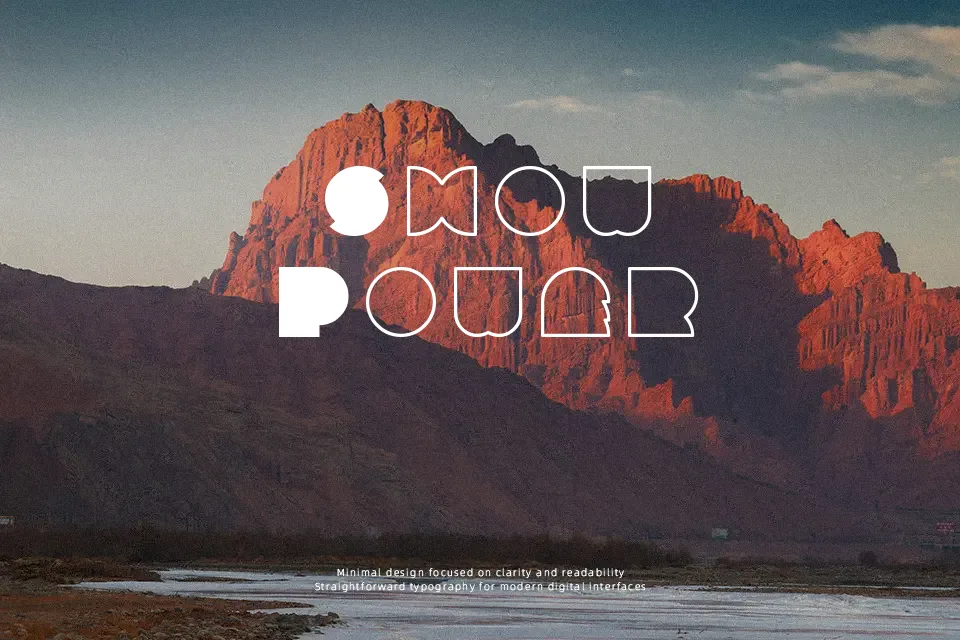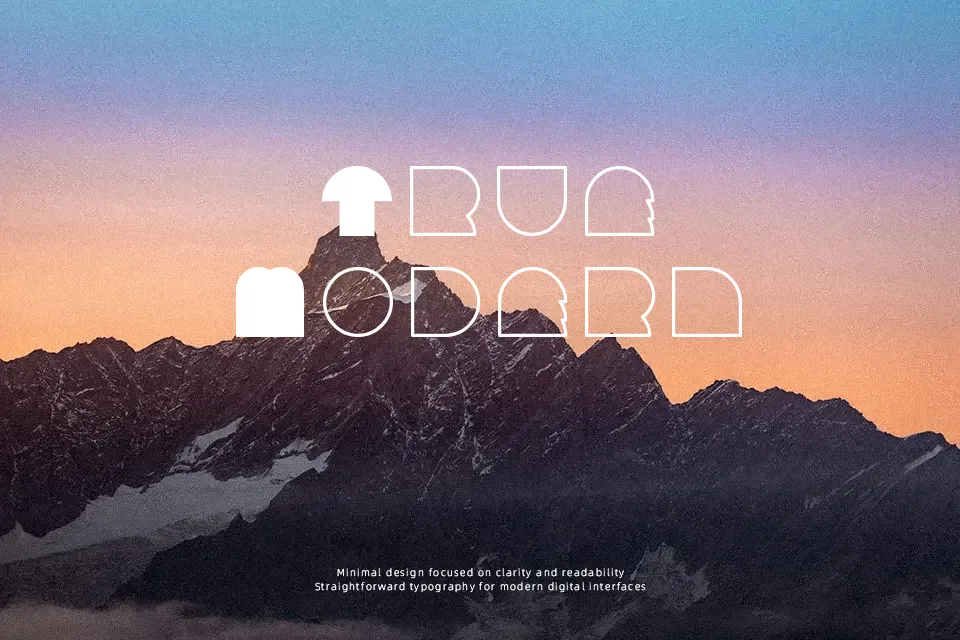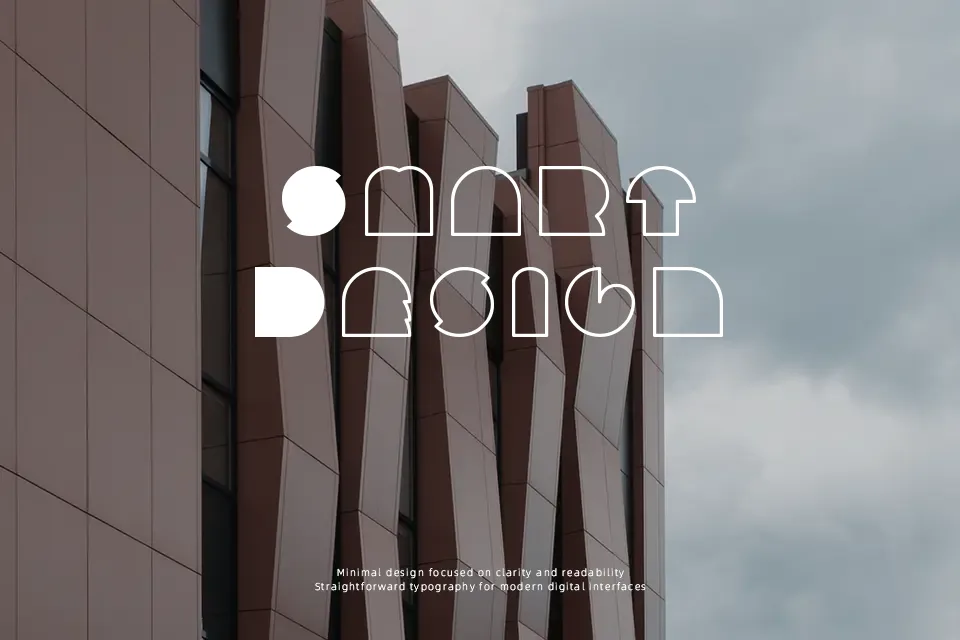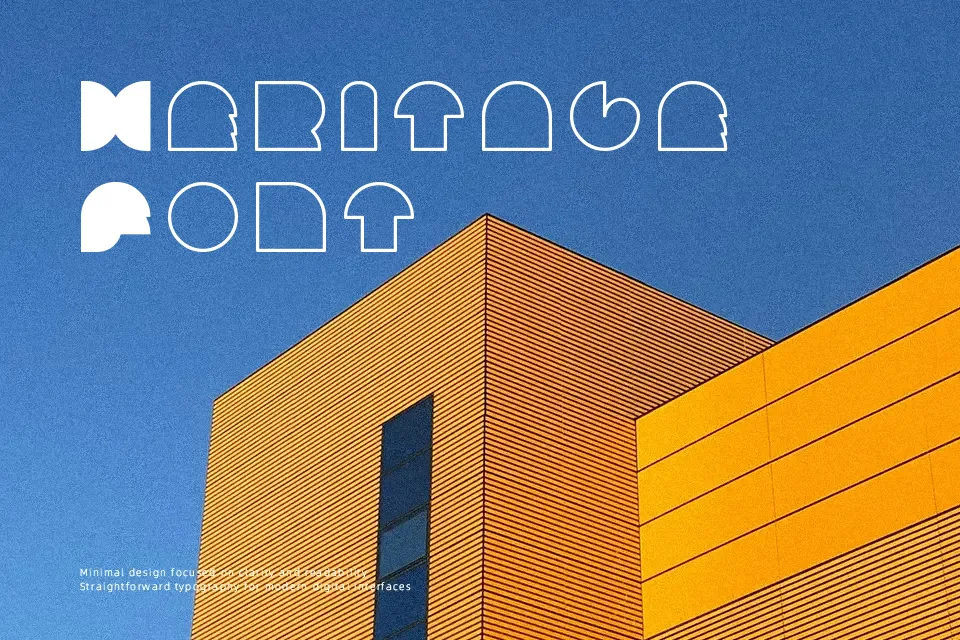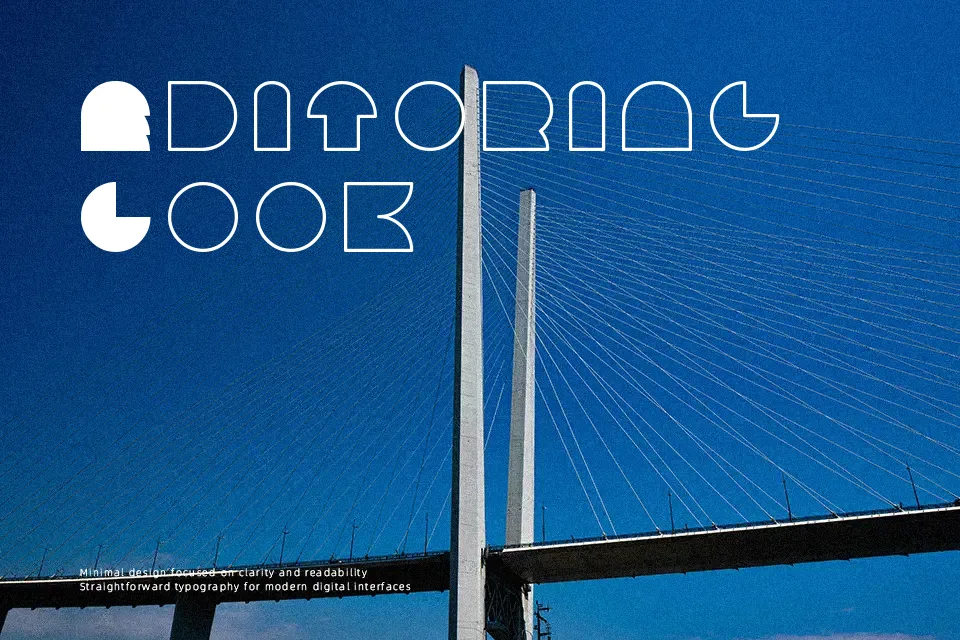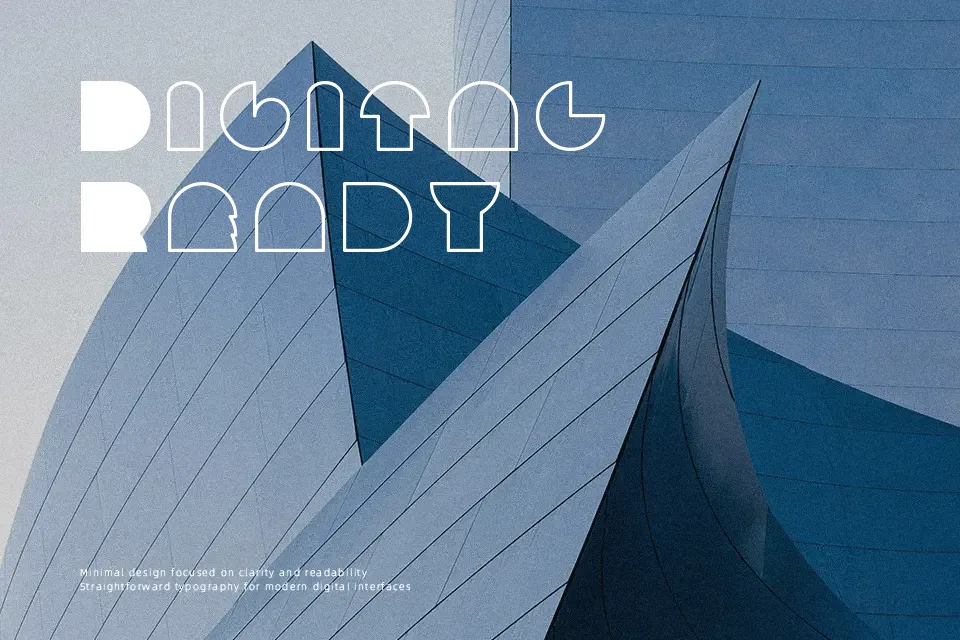
Circa Font
Circa Font presents an expressive visual rhythm defined by wide proportions, uniform stroke weights, and pronounced circular geometry across its character set. The letterforms maintain consistent curves and deliberate spacing that preserve clarity when rendered at substantial display sizes. Its rhythmic structure makes the typeface particularly effective for vinyl album sleeves, decorative event banners, and bold product labeling. However, the exaggerated rounded contours and heavy weight reduce legibility in continuous text blocks and compact interface elements. The bold circular strokes deliver remarkable punch in large headlines, but smaller caption settings quickly obscure interior counters.
Best For: retro music posters,vinyl record packaging,bold event banners,lifestyle apparel graphics
Not Ideal For: continuous body paragraphs,mobile application ui,small legal disclaimers,dense editorial columns
Perfect for headline, logo, and music, with a bold and display style.